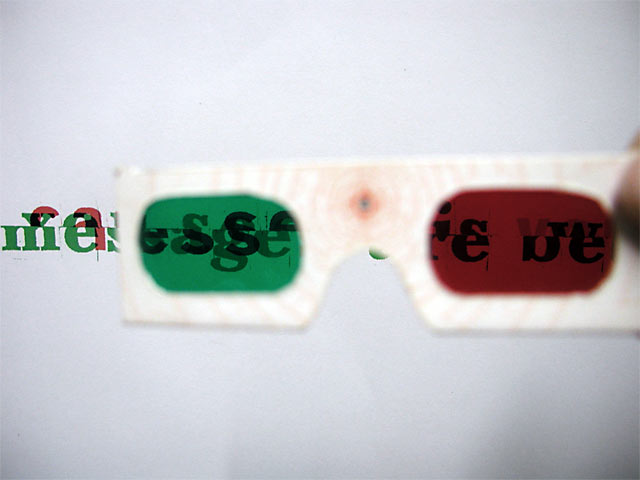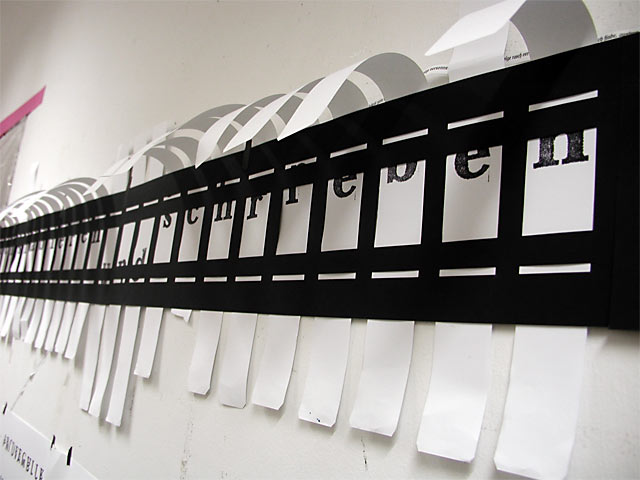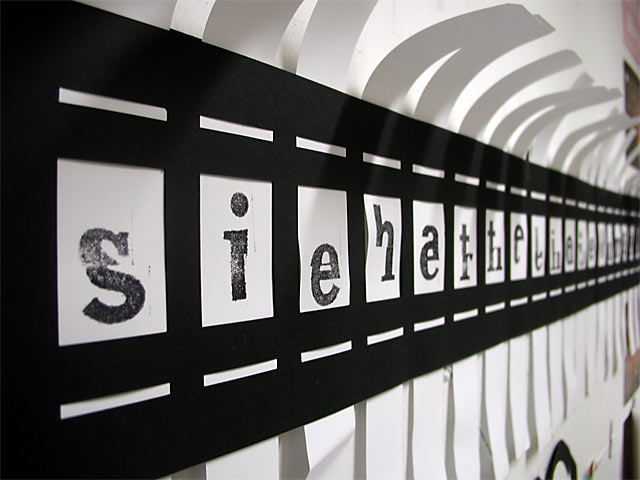
Nora Kreisl & Ramon Grendene : Up and down
Starting with the idea of developing a font which can communicate a dialog, we built a typeface out of two different fonts. A sans serif joins together with a serif and is copied, reprinted and rescanned. Finally it becomes a type game, where you can pull the letters up or down to read the message(s).
With further processing it would be possible to program a font that can be written on both sides. For example as a random font that generates overlapping messages which are only legible with special eyeglasses (red and green).